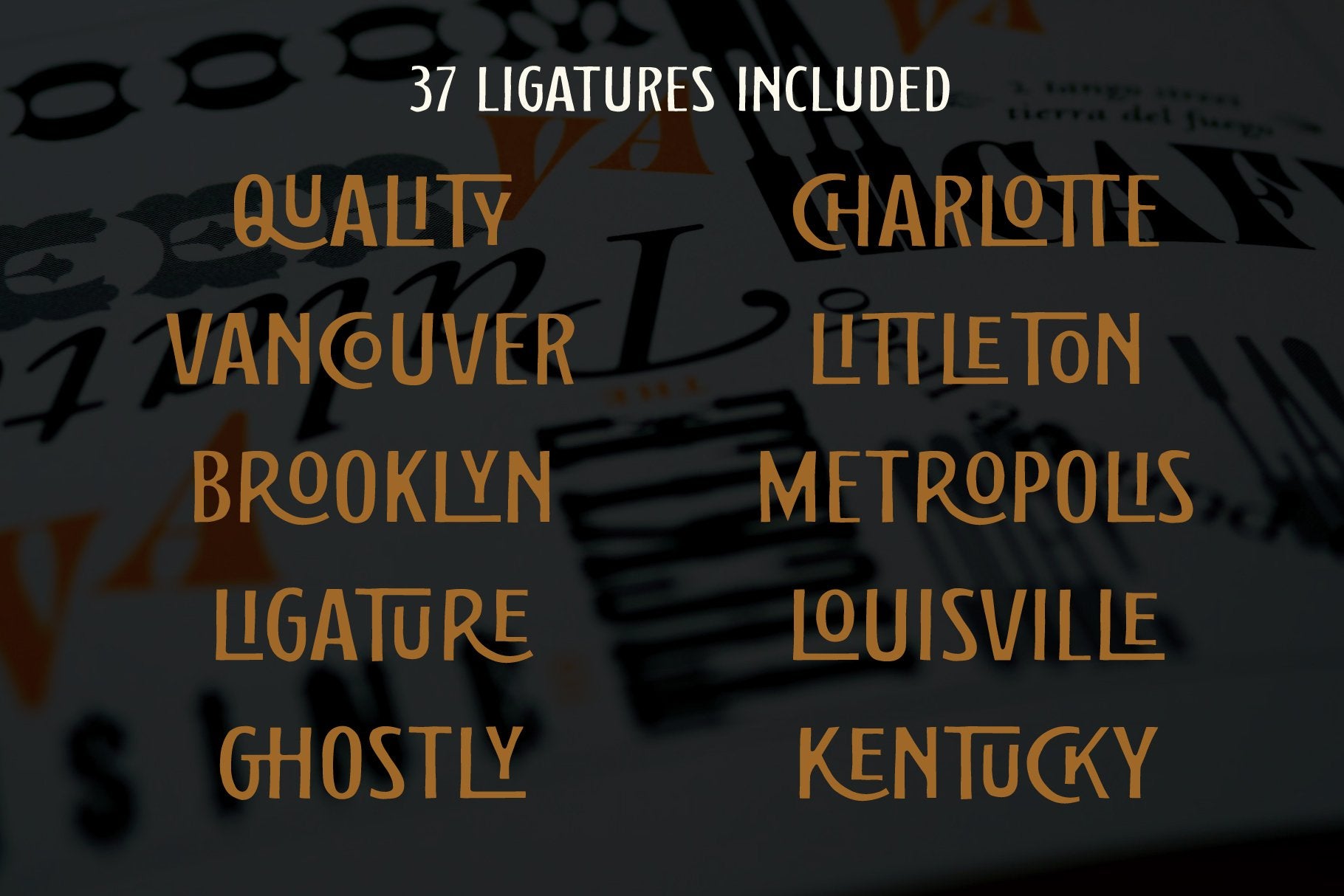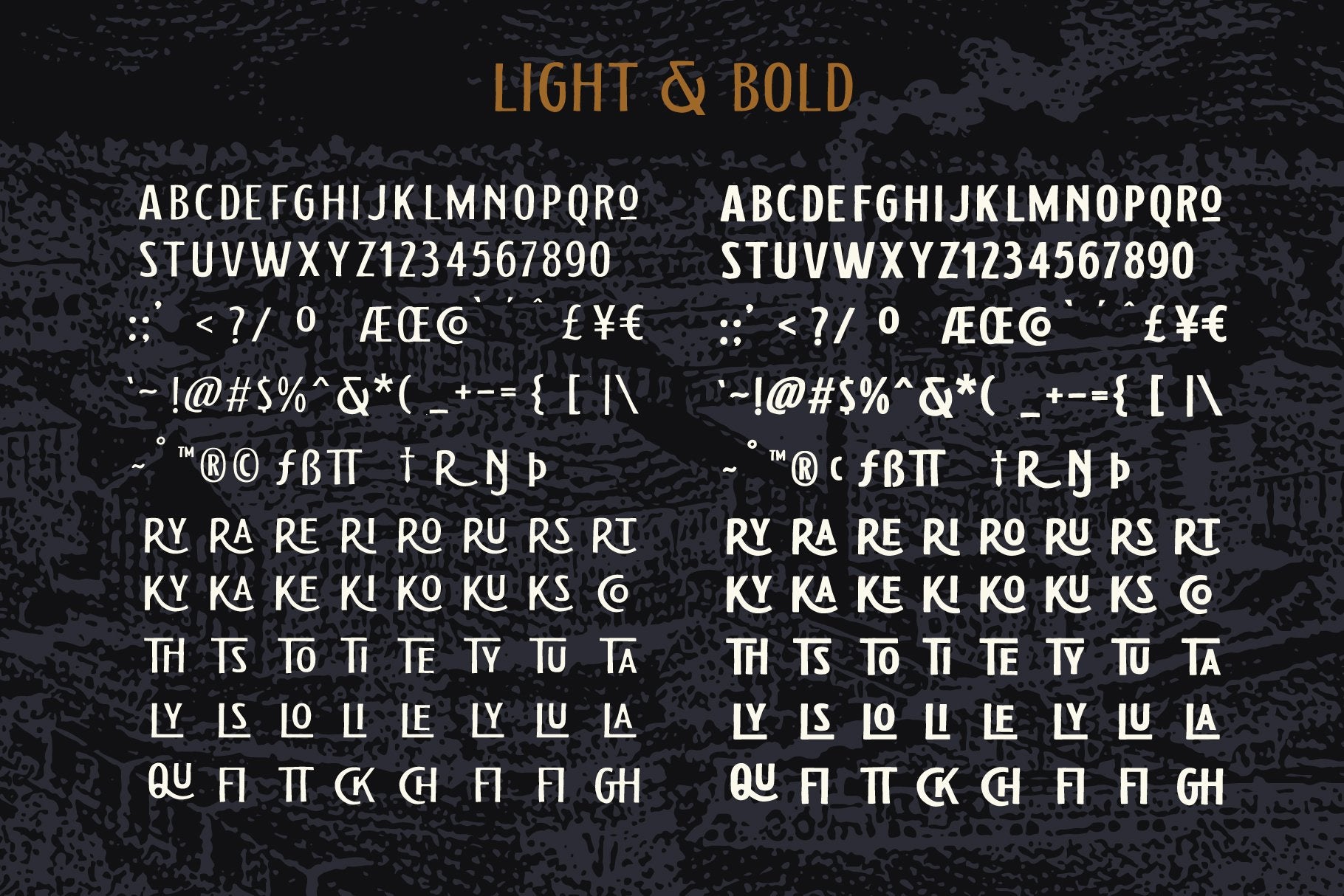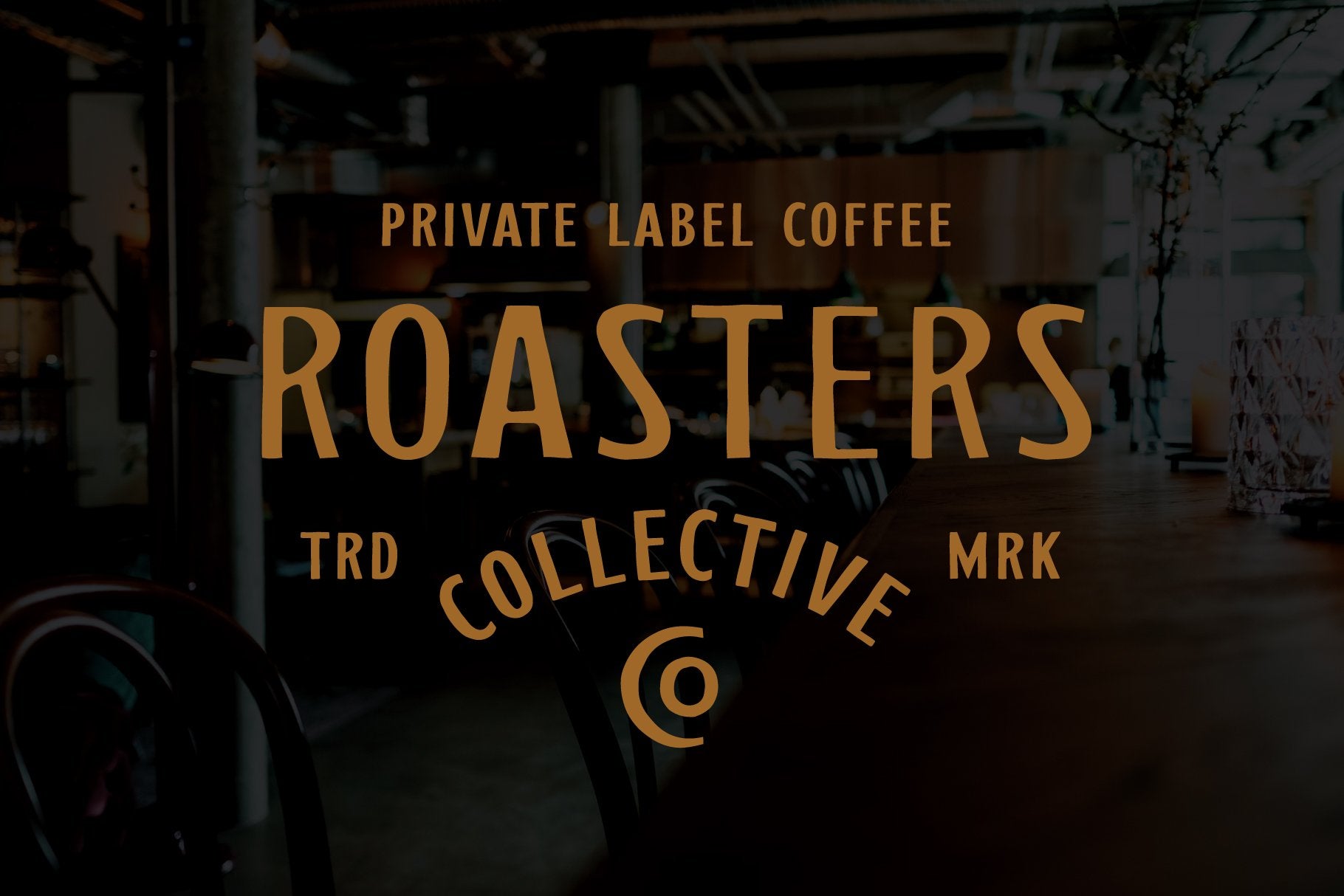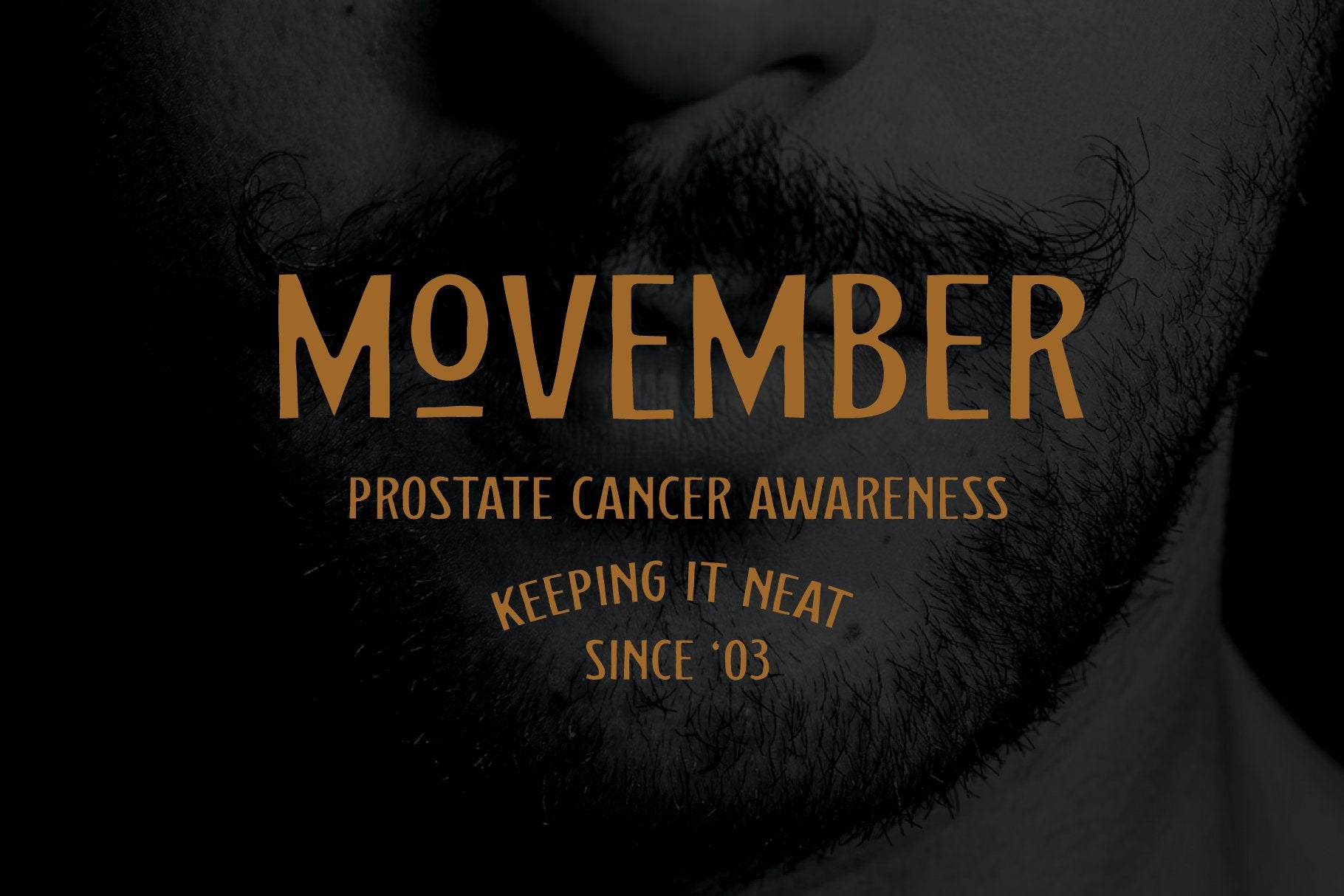
Birchshore - Ligature Font
Birchshore
Birchshore is a hand-drawn ligature typeface with 37 ligatures + extra alternate characters. Birchshore comes in Light & Bold with oblique versions of each.